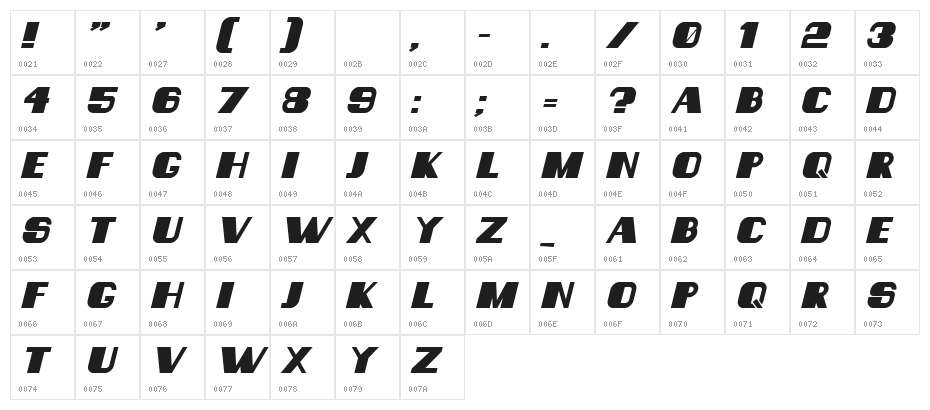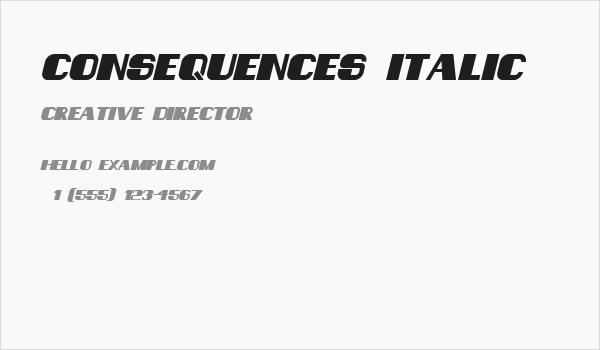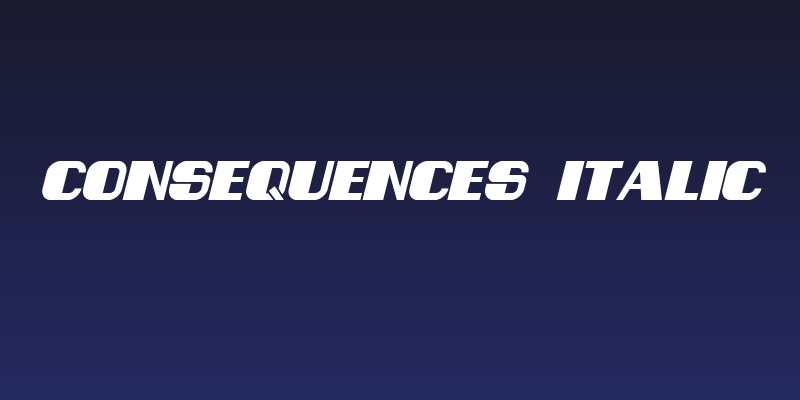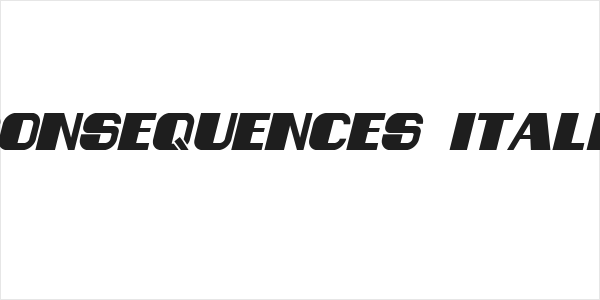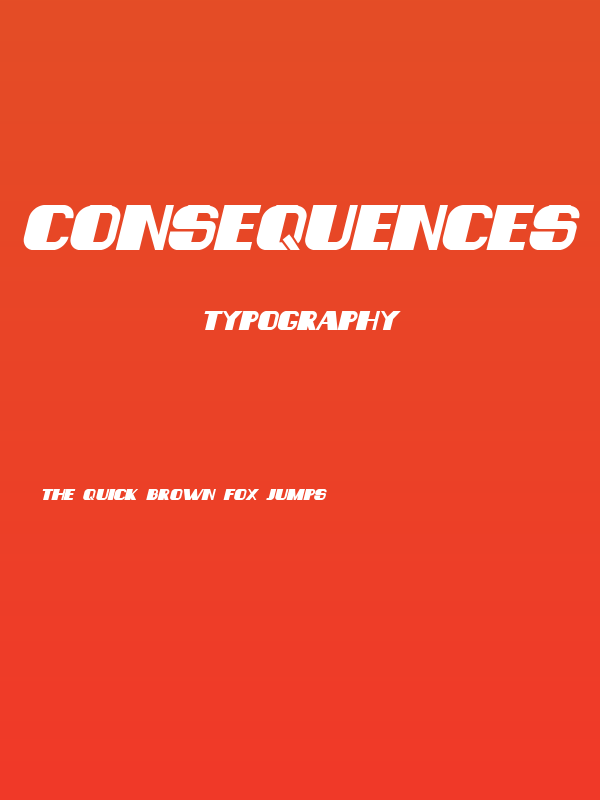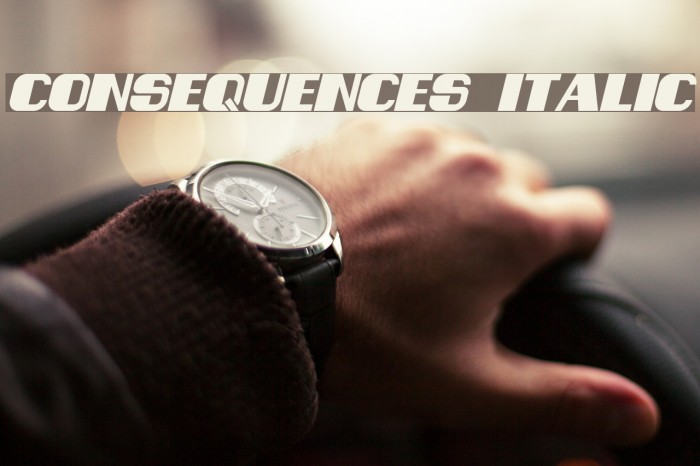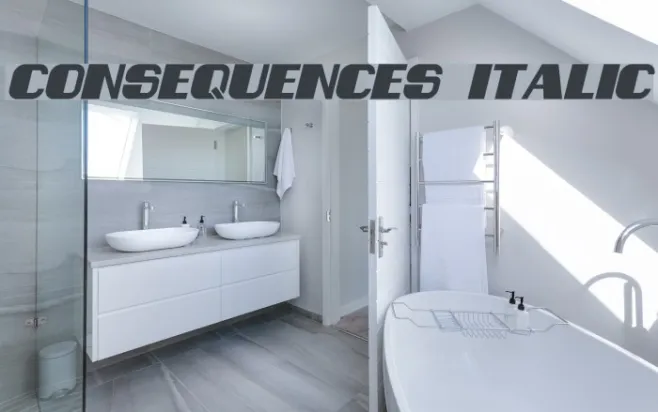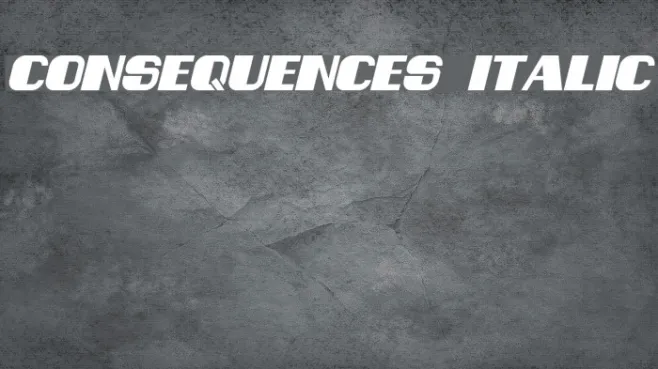
Consequences Italic Font
Consequences Italic Description
This font features a bold and dynamic style with a strong italic slant, giving it a sense of motion and urgency. The characters are thick and robust, with a modern and edgy appearance. The uppercase letters are particularly striking, with sharp angles and a slightly condensed form. The numbers and special characters maintain the same boldness and slant, ensuring consistency across all glyphs. This font is designed to stand out and make a statement, ideal for impactful headlines and attention-grabbing designs.
| Proposed Projects | Ideal for sports branding, action movie posters, dynamic advertisements, and any project needing a bold, energetic typeface. |